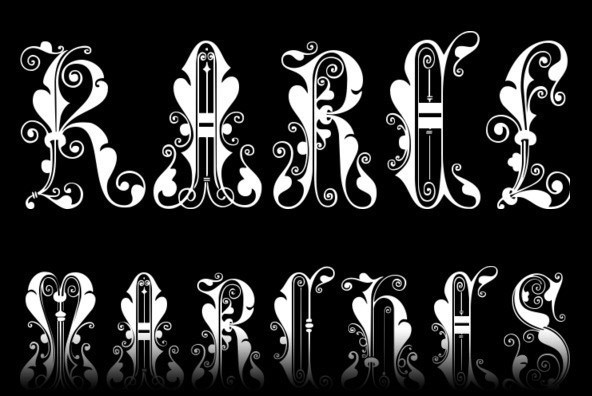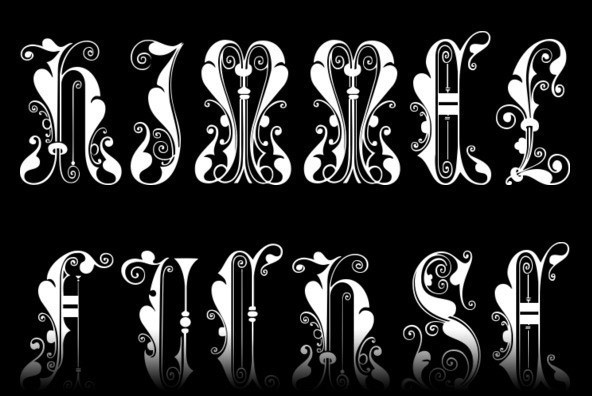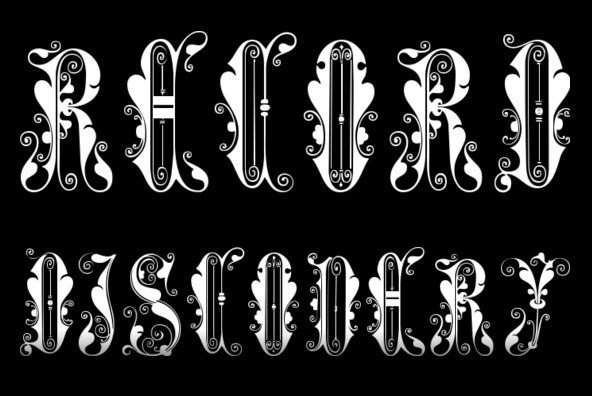
A classic and antique font design remastered by the type foundry Intellecta Design. Great display face for headers and antique-like projects. Contains a limited amount of letter designs, all uppercase letter designs.